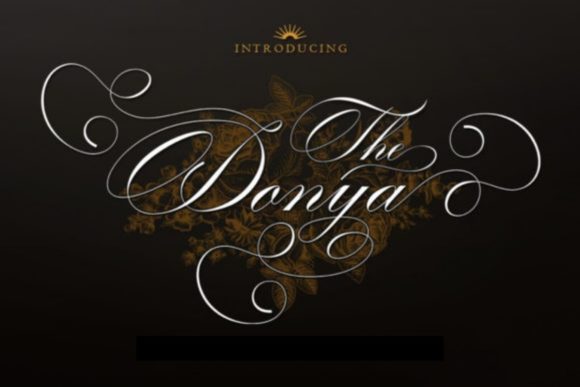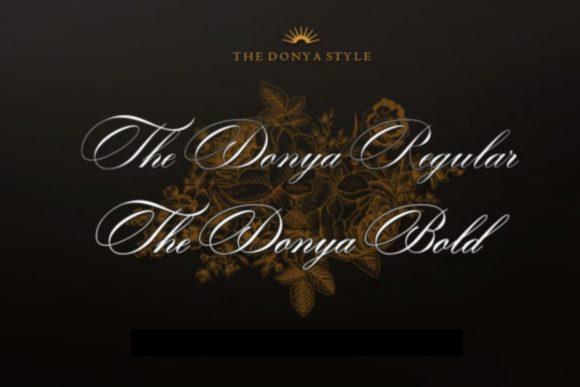
About The Donya Font
The Donya is a refined script font with a contemporary atmosphere and impeccable form, inspired by timeless classic calligraphy. Not too thin and not too thick, balanced and varied, this font was designed to enhance the beauty of your projects. This font is PUA encoded which means you can access all of the glyphs and swashes with ease!